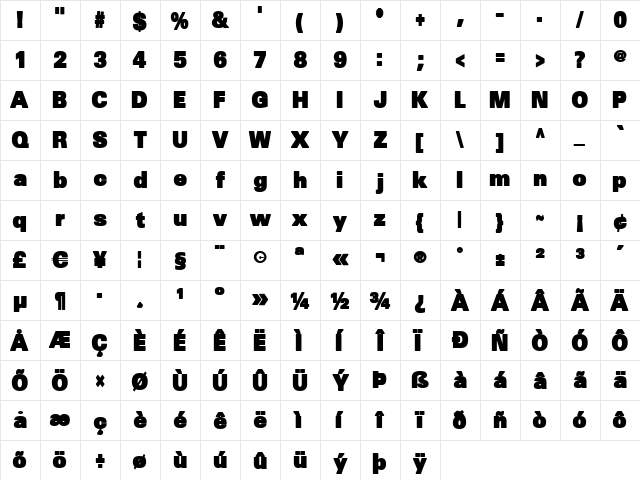
SansBlack Regular Font Preview
SansBlack Regular
SansBlack Regular Font Details
Design Context for SansBlack Typeface
SansBlack takes a measured approach to typography — its balanced proportions and neutral character make it a reliable workhorse for both digital and print work.